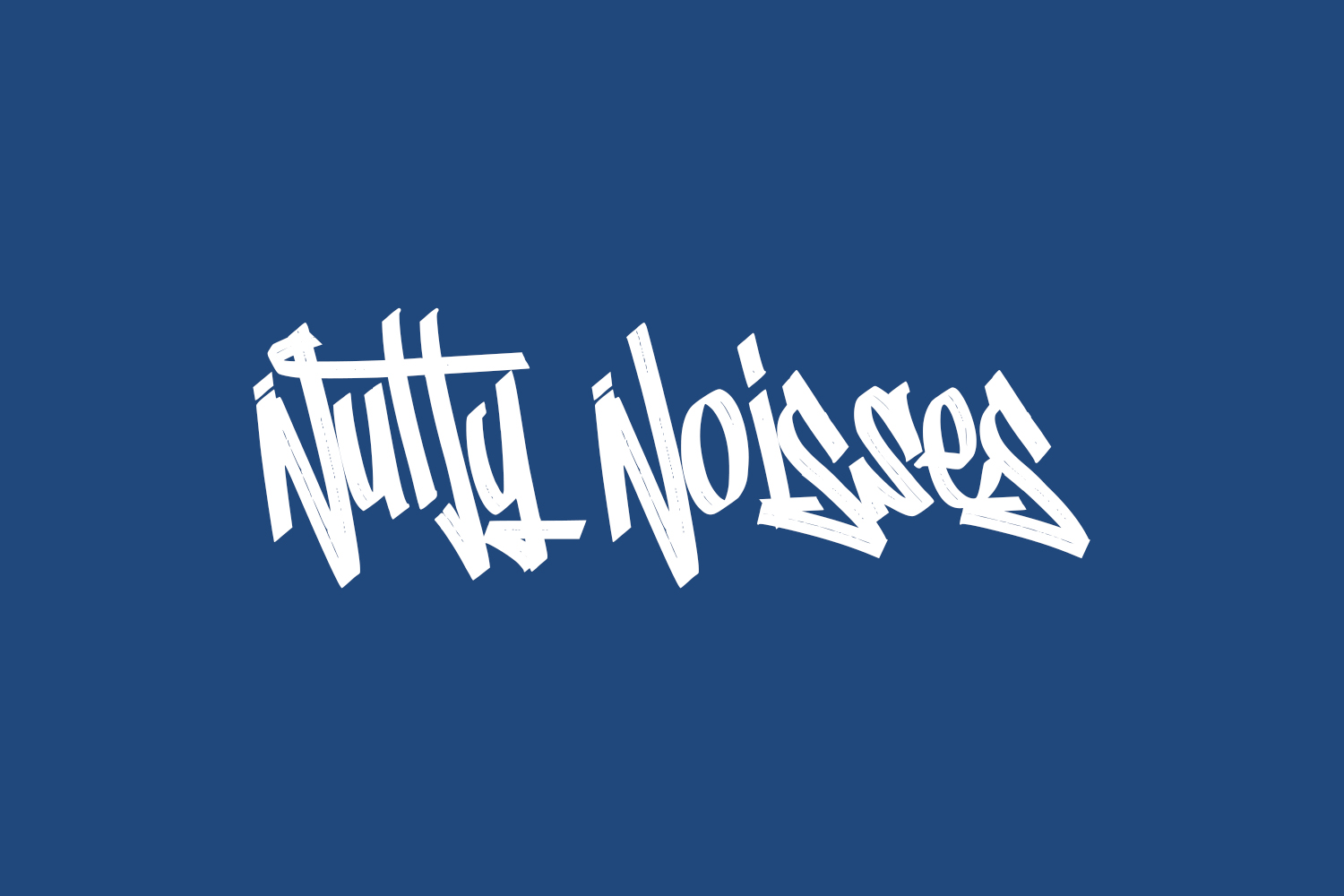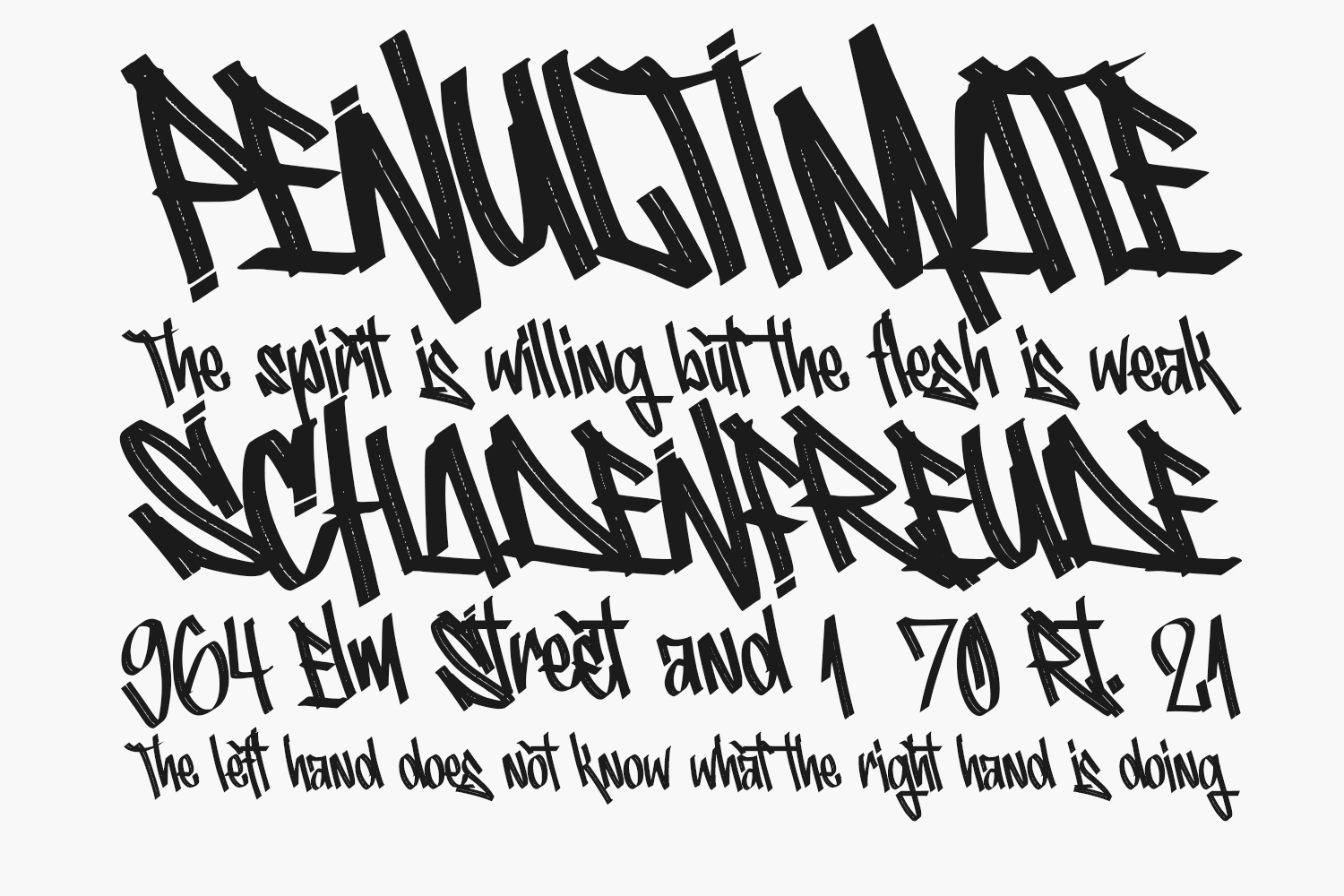
Nutty Noisses Free Font is a simple Graffiti Font with a natural authentic classy style. This font is great for your creative projects such as watermark on photography, and perfect for logos & branding, invitation, advertisements, product designs, stationery, wedding designs, label, product packaging, special events or anything that need handwriting taste. Nutty Noisses Free Font is free for personal use only. Please purchase the full version for commercial use.
Designed by Gassstype